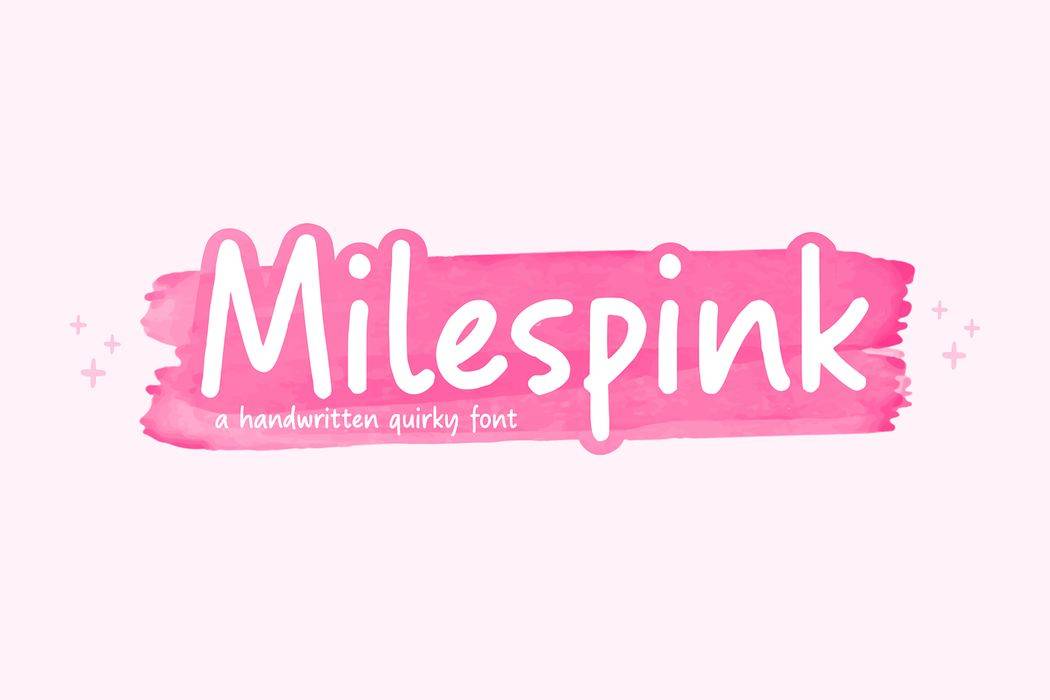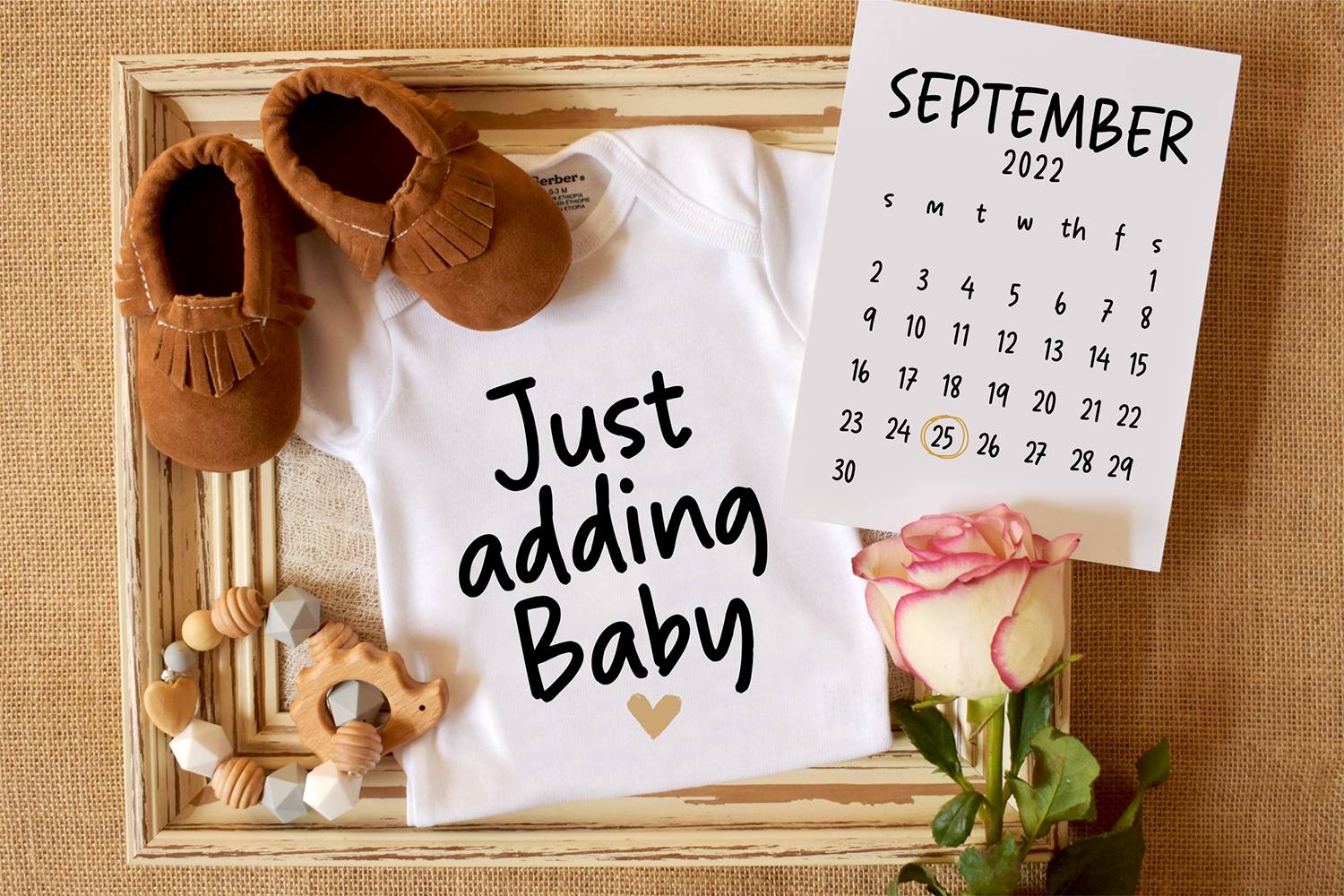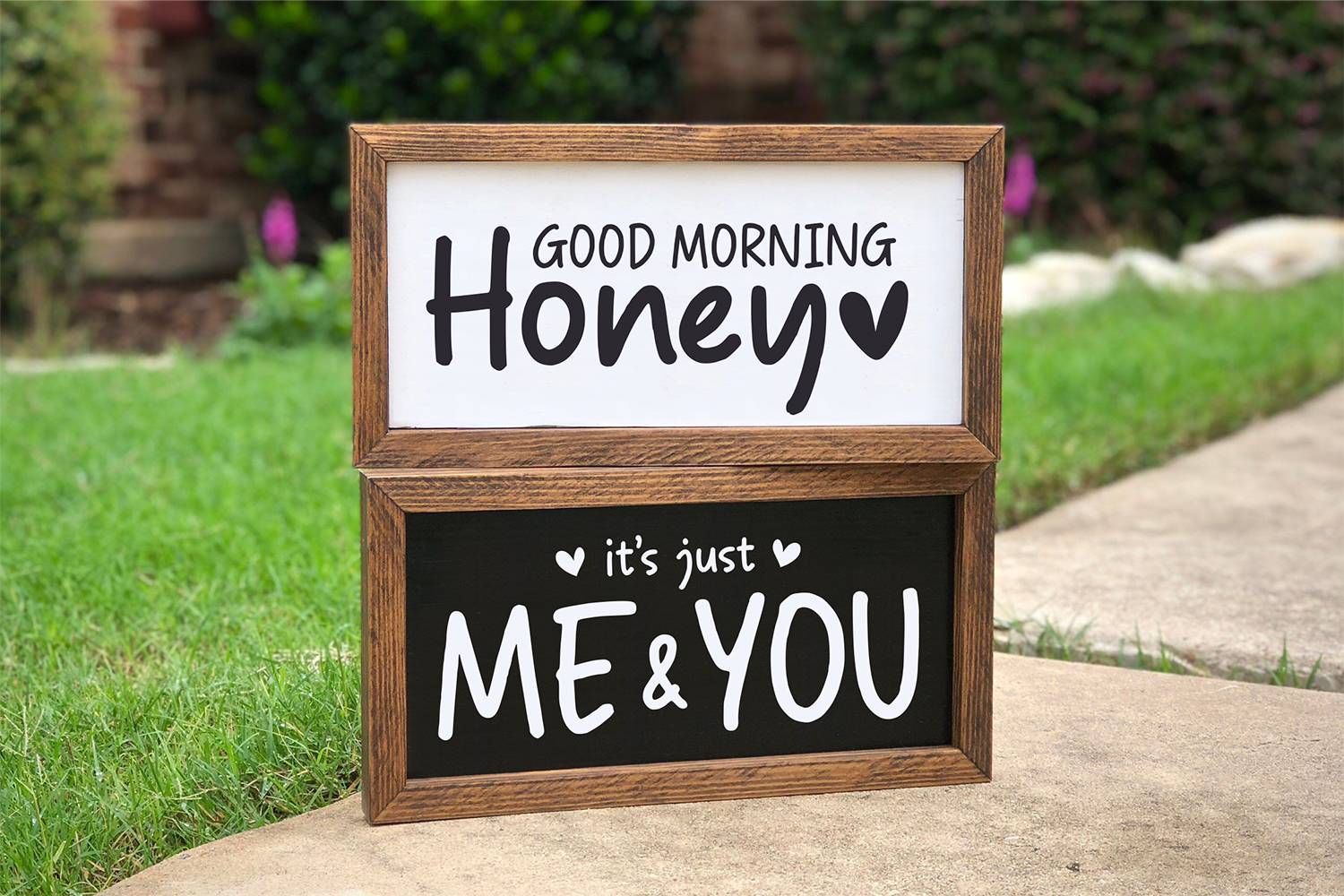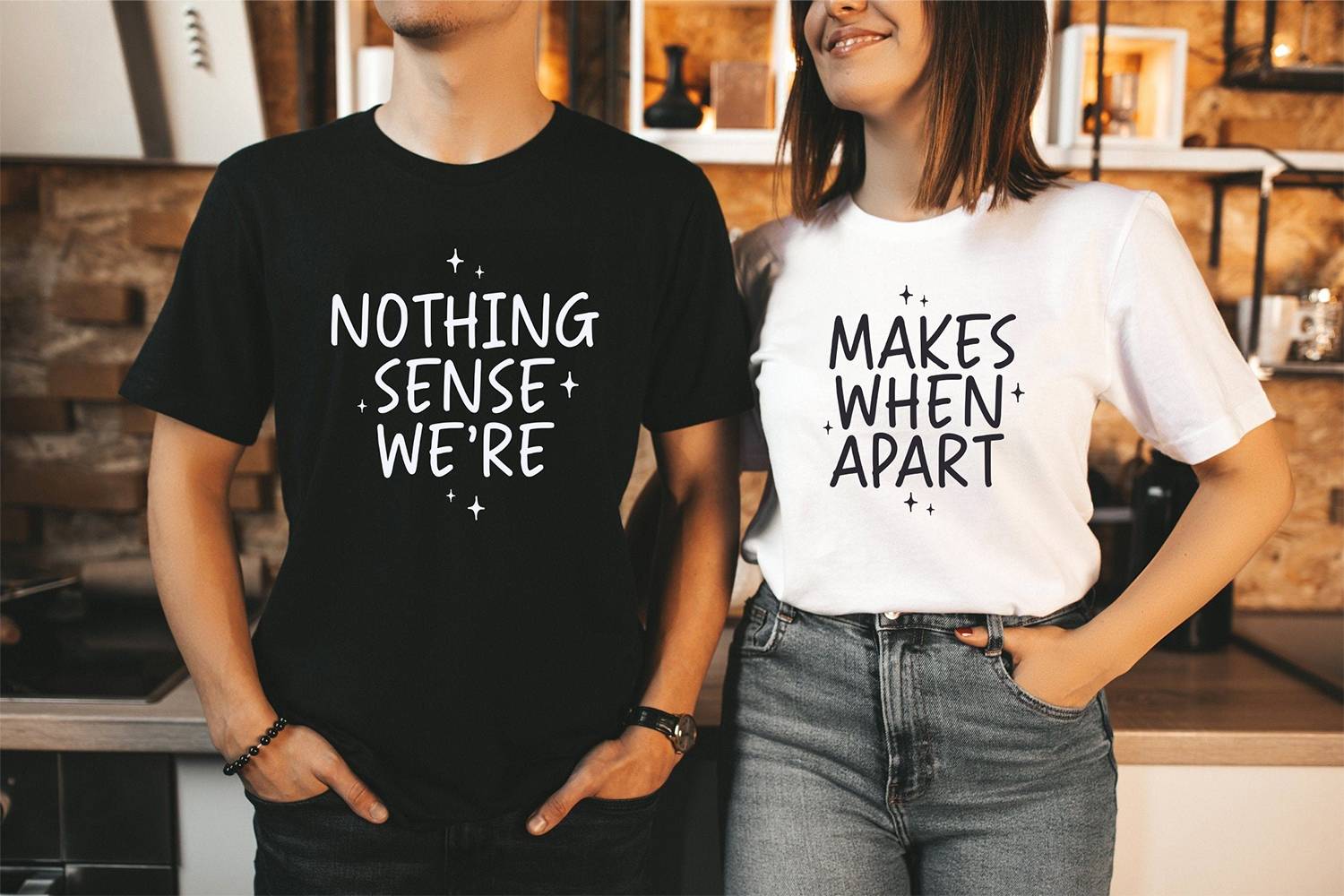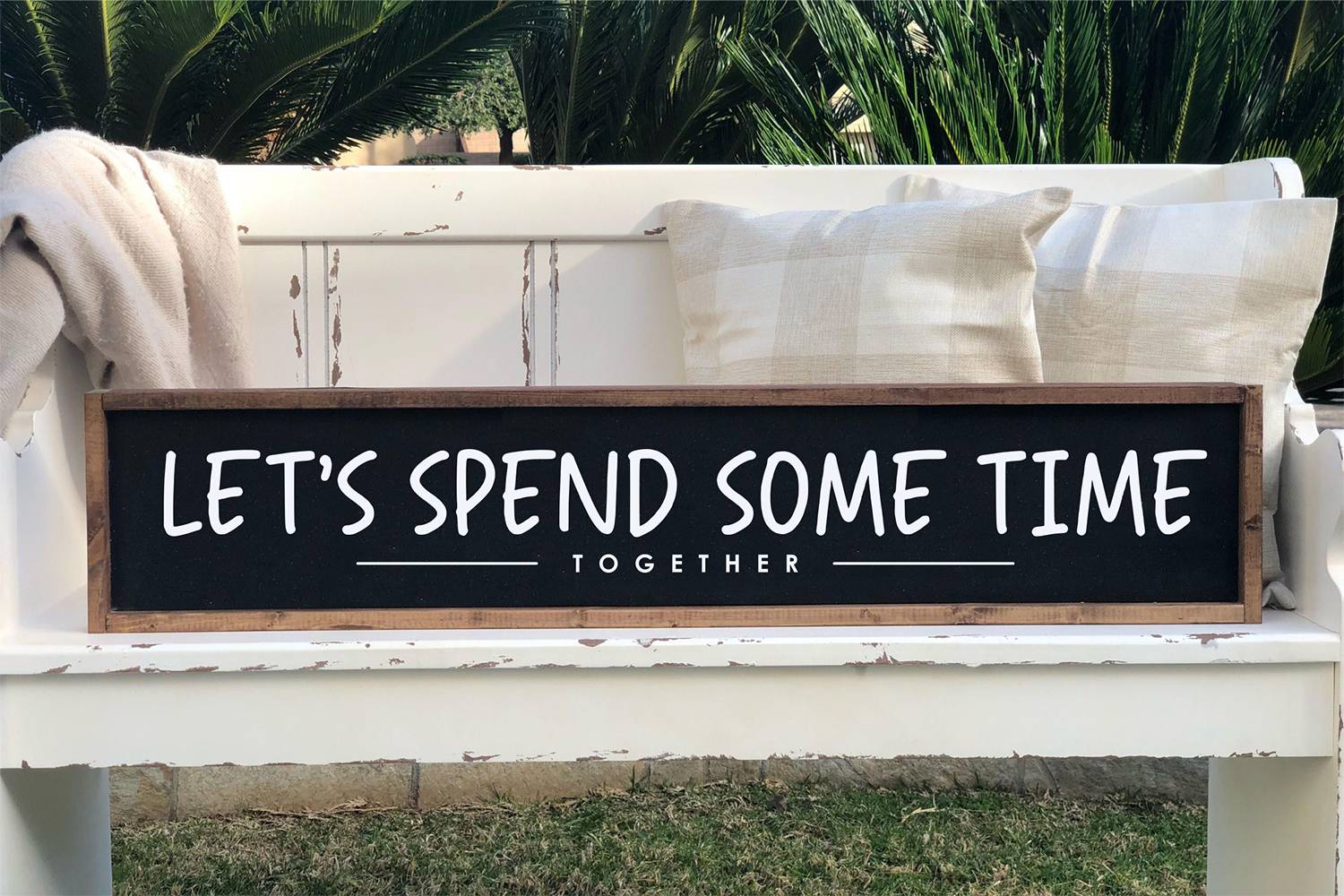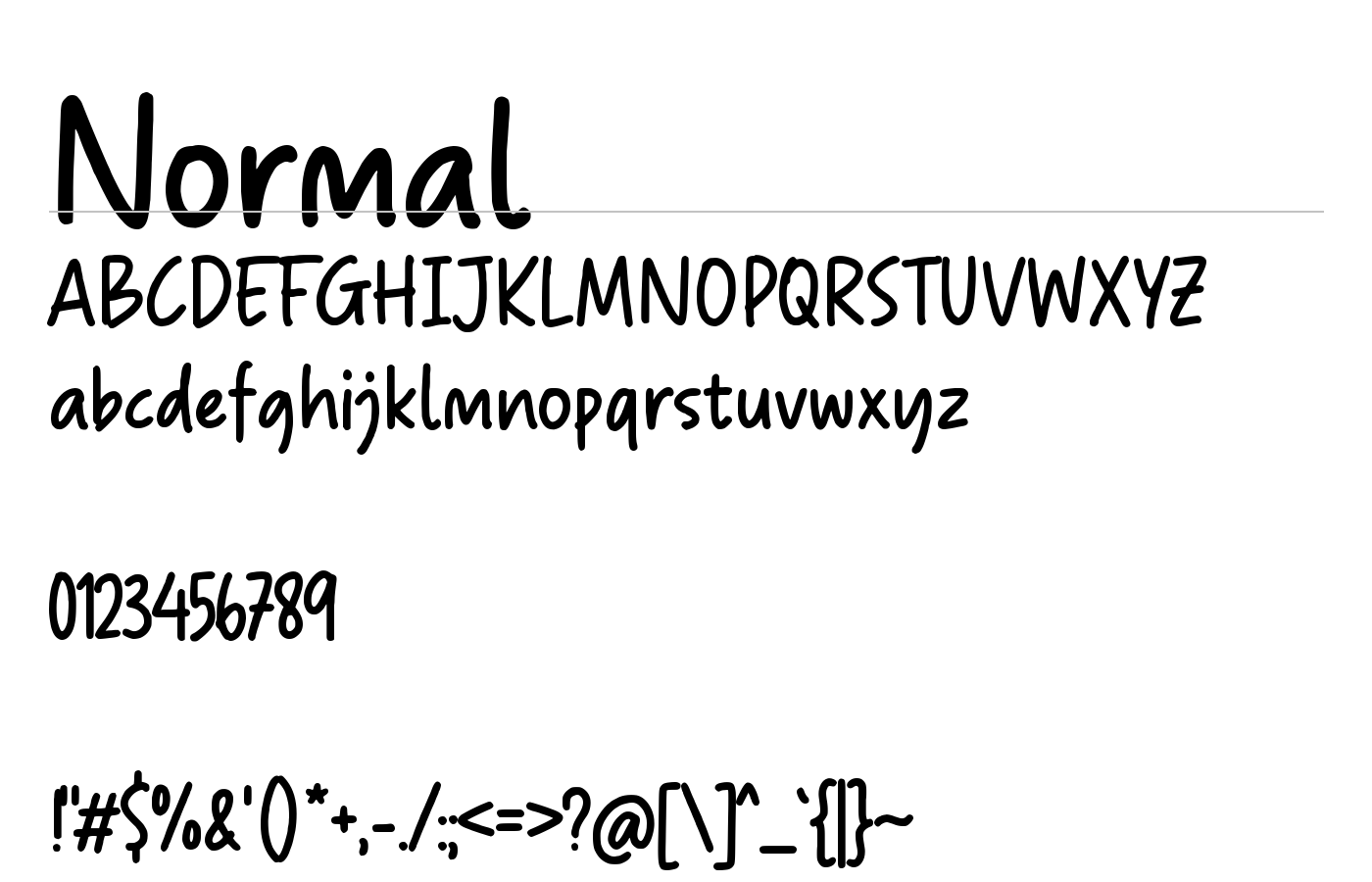
Milespink is a casual, handwritten sans serif font with a playful and friendly vibe. Its irregular strokes and slightly condensed letterforms give it an approachable, informal feel, perfect for creating a warm and personal connection. This font works well in creative projects, children's materials, and informal branding where a relaxed and charming personality is desired.
Milespink Font
About Milespink Font